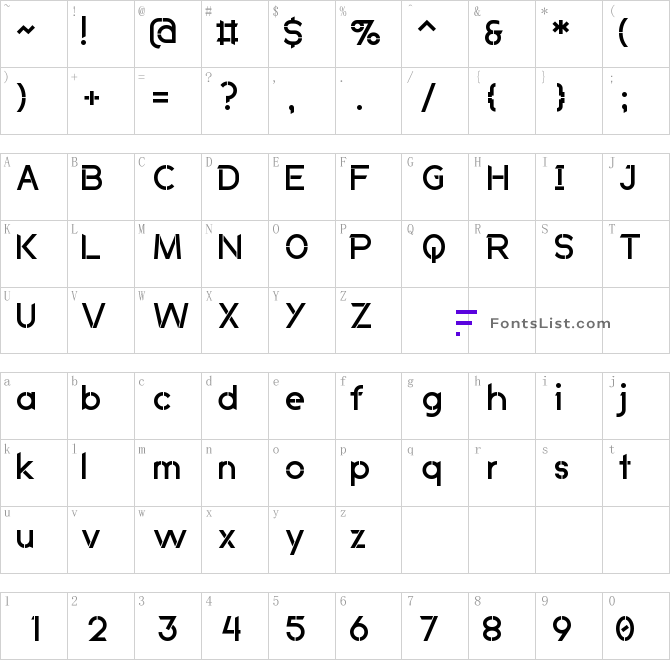
- Font Name:Anklada Novaz
Anklada-Novaz-original.ttf is a very beautiful artistic font, Anklada-Novaz-original.ttf is widely used in the design and printing of various books and pictures,Anklada-Novaz-original.ttf has a strong visual impact,Anklada-Novaz-original.ttf is a commonly used font in newspapers, magazines and books, and is used in posters, e-commerce Poster design, store design, logo design, font design and other fields.Anklada-Novaz-original.